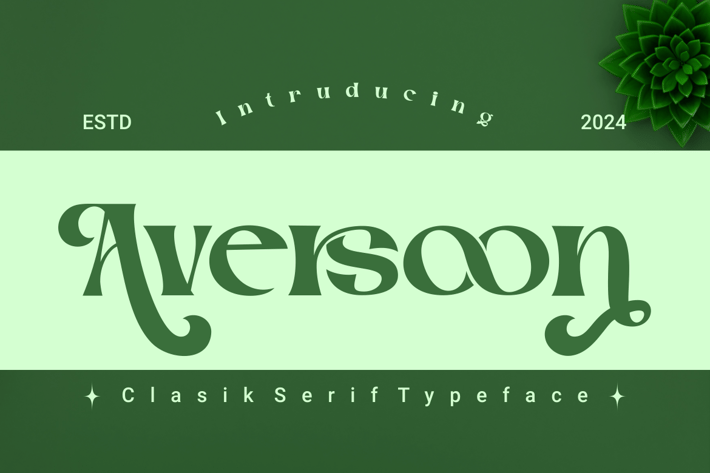
Aversoon - Classic Typeface Font
Introducing our new product Aversoon - Classic Typeface Font Modern Font
Aversoon - Classic Typeface Font - Modern Font is a bold and authentic display font. The font is suitable for any branding project like logo, t-shirt printing, esport, and many more. outstanding in a wide range of contexts.